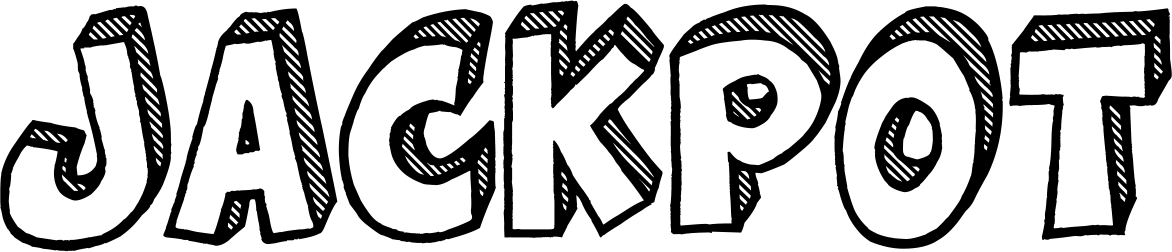
Jackpot Font
Cartoon fonts can always give a cheerful and fun makeover to your texts and Jackpot is no exception. This font has a hollow 3D-like design with cartoony characters and you can use it for children’s product names and packaging, kid-friendly events, sale, or party banners and flyers, movie and cartoon titles, zoo banners, and playground posters.